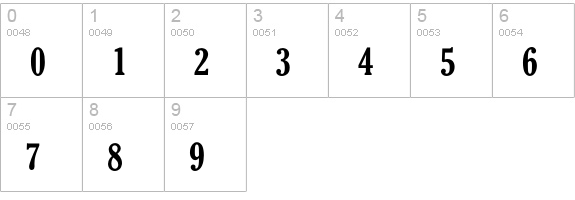
Cheltenham ATF Condensed Bold Font Details
Cheltenham ATF Condensed Bold is a strong, high-contrast, condensed-width variant in the Cheltenham typeface family \xE2\x80\x94 well suited to headlines, attention-grabbing titles, and strong calls-to-action.
Cheltenham ATF Condensed Bold font is a timeless and versatile typeface that exudes sophistication and elegance. With its strong and bold letterforms, this font is perfect for making a statement in headlines, titles, and branding materials. The condensed style adds a modern touch while maintaining the traditional charm of the original Cheltenham typeface. This font is freely available to download at FontsMarket.com, making it easily accessible for designers and typographers looking to add a touch of class to their projects. Whether you're creating a sleek logo, designing a striking poster, or crafting an eye-catching website, Cheltenham ATF Condensed Bold font is sure to make a lasting impression. Elevate your designs with this stunning typeface and watch them come to life with style and sophistication.